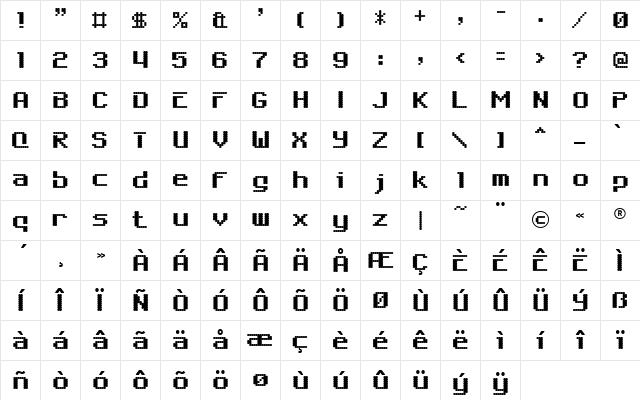
Complete 6809 Chargen Regular glyph index. Displaying only characters natively supported by 6809 Chargen Regular font.
6809 Chargen is a composed and adaptable typeface that performs quietly and consistently across a wide range of design contexts.